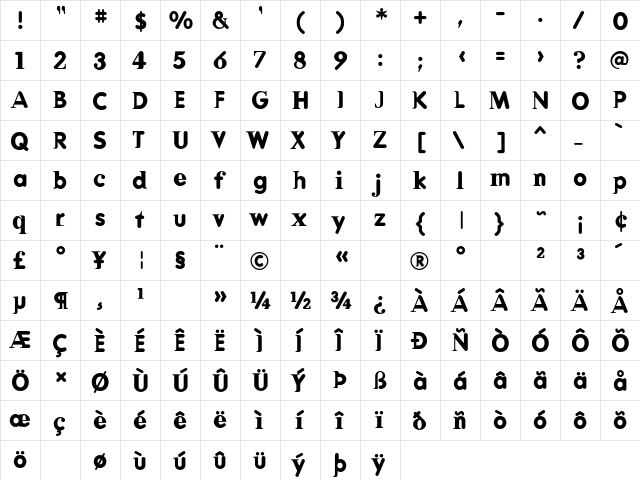
DeadHistoryBold Regular
Design Context for DeadHistoryBold Typeface
DeadHistoryBold offers clean, dependable letterforms without strong stylistic allegiance, making it a practical choice for designers who need flexibility. The heavy weight commands attention and anchors typographic hierarchies.